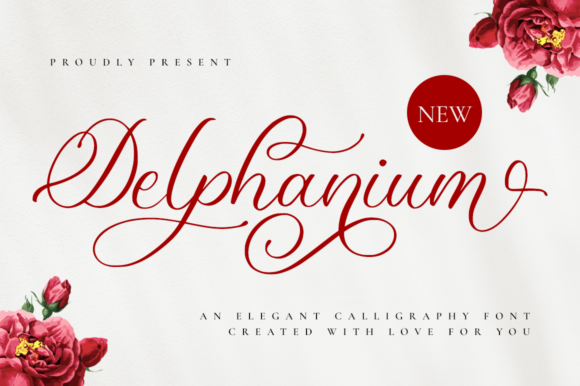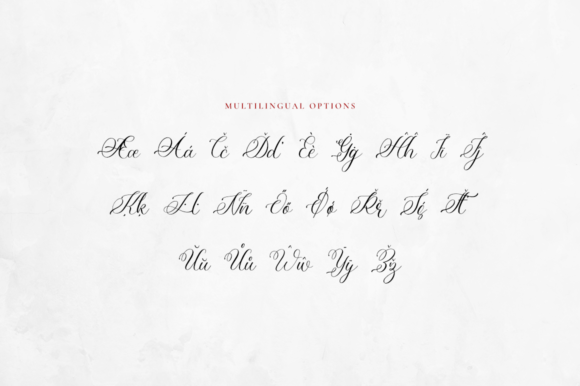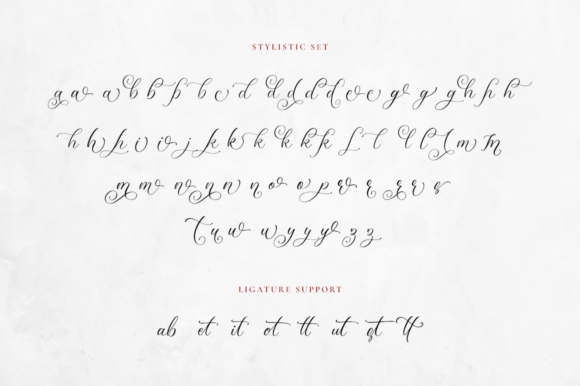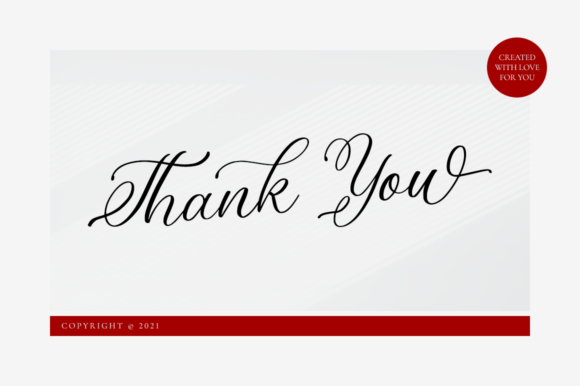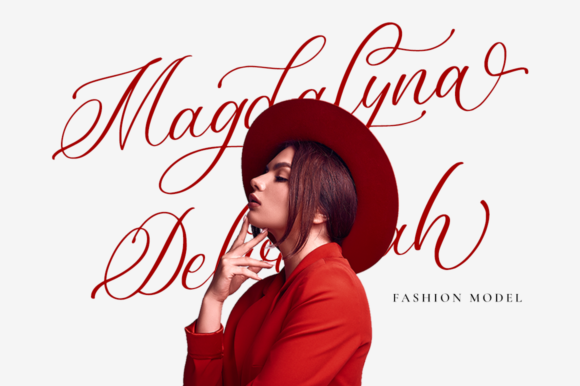
Delphanium Font
About Delphanium Font
Delphanium is an exquisite handwritten font, masterfully designed to become a true favorite. It maintains its classy calligraphic influences while feeling contemporary and fresh. Delphanium is PUA encoded which means you can access all glyphs and swashes with ease!